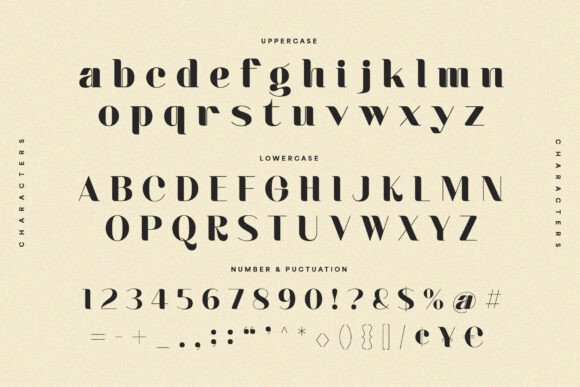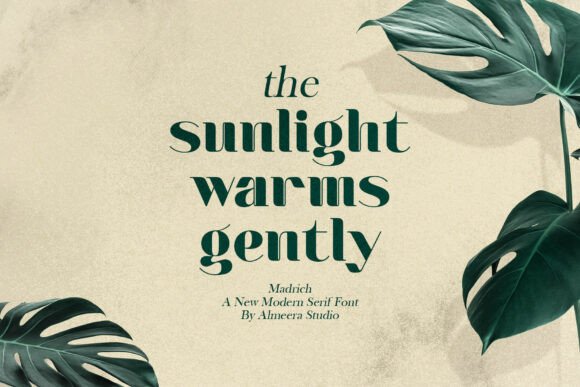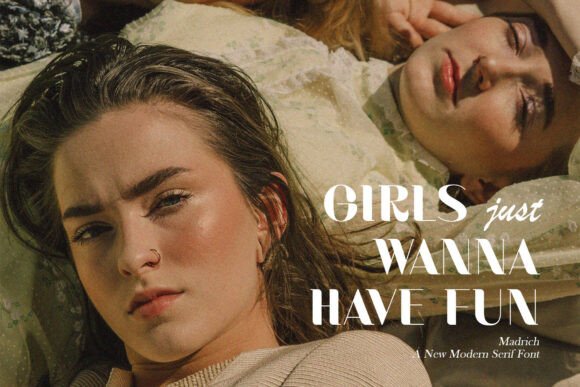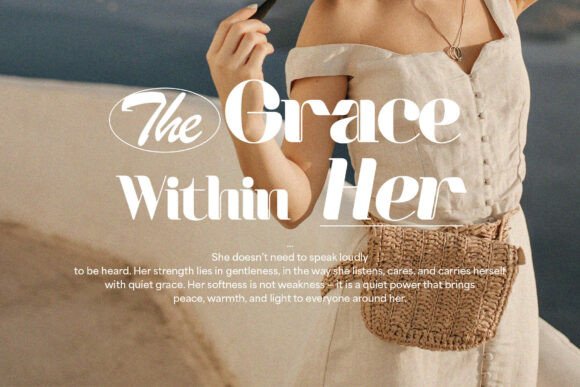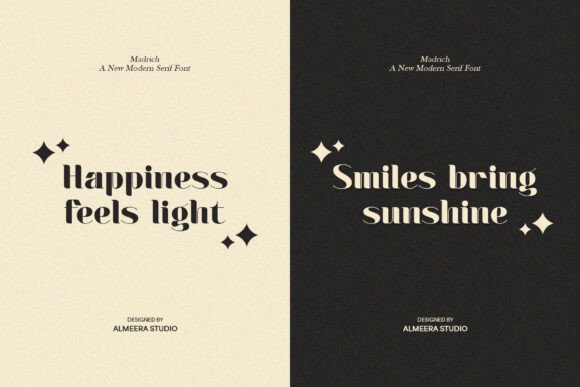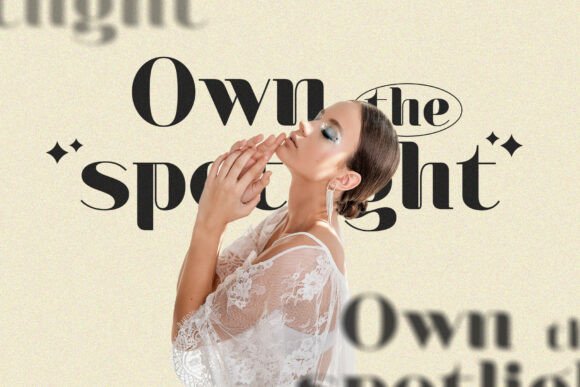
Introduction to Madrich Font
As a designer, you’ve likely experienced that moment when you’re staring at a blank page, and the perfect font is just out of reach. You want something that will elevate your project, but everything seems to be missing that certain je ne sais quoi. That’s where Madrich Font comes in – a game-changing serif typeface that will take your designs to the next level.
With its impeccable balance of classic elegance and modern flair, Madrich Font is the ultimate design resource for creatives seeking a high-quality font that exudes sophistication and style. Whether you’re working on a corporate identity, a fashion magazine, or a digital content campaign, Madrich Font is sure to deliver a polished and professional look that demands attention. And with its versatility, you can trust that it will work seamlessly with a transparent background, making it the perfect addition to any creative project.
Key Features of Madrich Font
- High-quality design resource with a unique, creative touch, perfect for various projects
- Transparent background option for flexible design and easy layering
- High-resolution font files (up to 1024 DPI) for crisp and clear text display
- Designed to be versatile and suitable for a wide range of creative projects, from logos to typography-based art
Honest Review: Madrich Font
I recently had the chance to work with the Madrich Font, and I must say it’s been a game-changer for my creative project. The high quality of this font has really taken my design to the next level.
One of the things that I love about the Madrich Font is its versatility. It can be used for a variety of design projects, from logos to typography. The transparent background also makes it easy to customize and integrate into any design.
- ✨ High quality design that’s perfect for creative projects
- ✨ Versatile and can be used for a variety of design projects
- ✨ Transparent background makes it easy to customize and integrate
- ⚠️ Limited customization options, which can be a drawback for some designers
- ⚠️ Not ideal for projects that require a lot of complex typography
Overall, I’m really impressed with the Madrich Font. It’s a great design resource that’s perfect for creative projects. While it may have some limitations, the benefits far outweigh the drawbacks. I would definitely recommend it to any designer looking for a high-quality font.